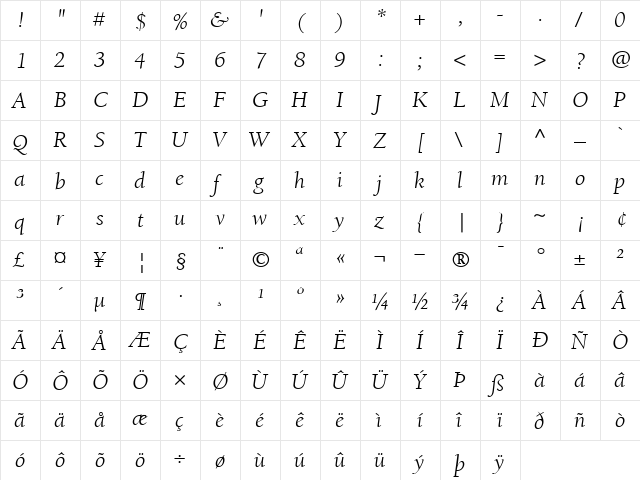
ITCBerkeleyOldstyle-Book BookItalic
Design Context for ITCBerkeleyOldstyle-Book Typeface
ITCBerkeleyOldstyle-Book carries the refined structure of traditional serif typography, with bracketed terminals and considered proportions that communicate credibility and craft. The dynamic lean of this cut emphasises speed and emphasis in any layout.
Pro Tip: Use ITCBerkeleyOldstyle-Book for editorial body copy and considered headline work. Pair with a neutral sans for UI elements or captions to create a classic hierarchy.